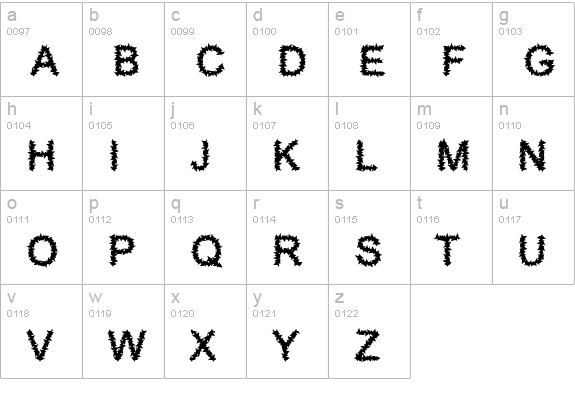
Furry Font Details
Introducing the captivating and whimsical Furry font, a delightful typeface that exudes warmth and playfulness. Each letter is intricately designed with furry accents, adding a touch of charm and creativity to any project. Whether you're working on a children's book, greeting cards, or branding materials, Furry font will bring a unique and fun element to your design. The best part? Furry font is completely free to download at FontsMarket.com! Embrace your playful side and add a touch of whimsy to your projects with this charming and versatile typeface. Download Furry font today and let your creativity run wild!